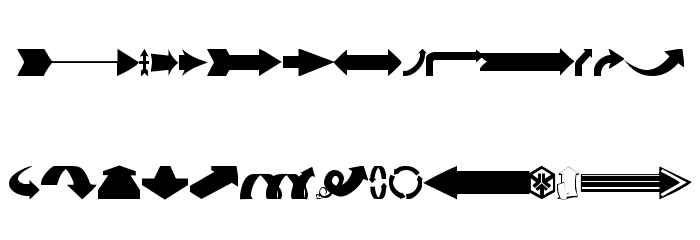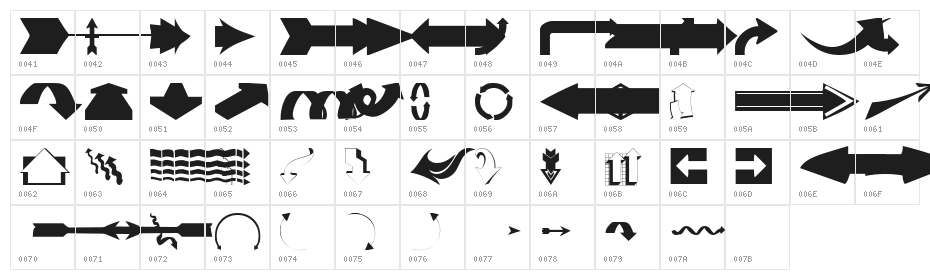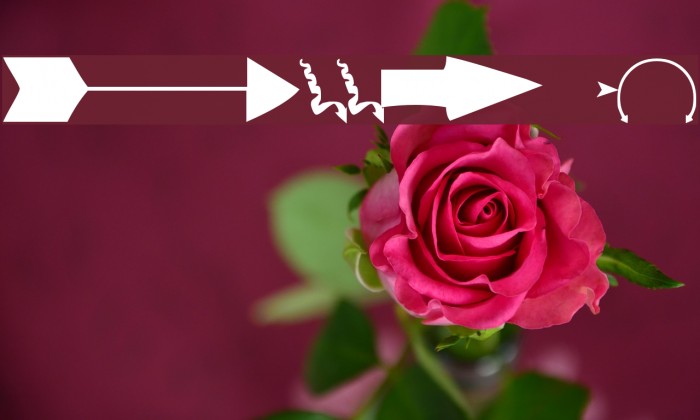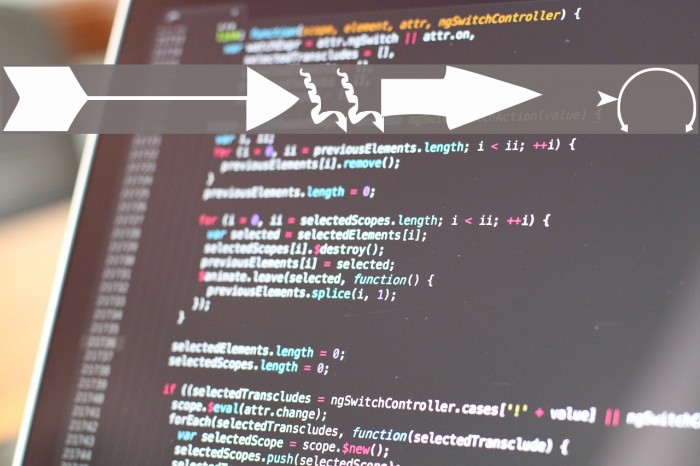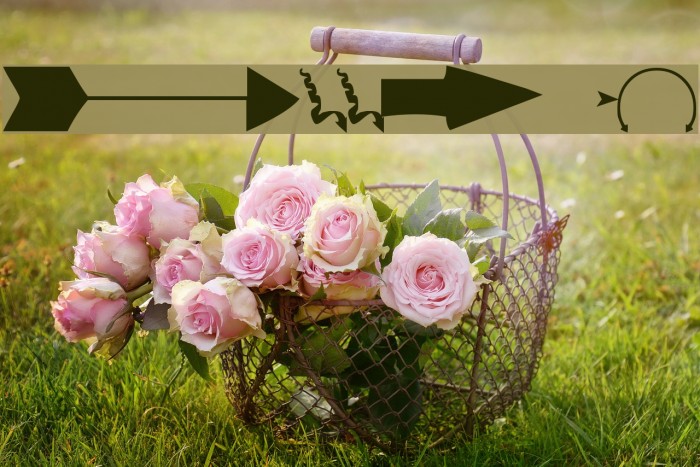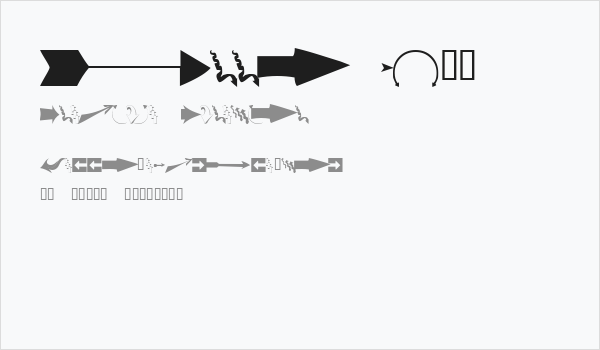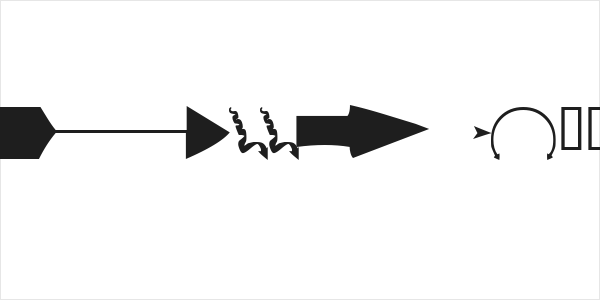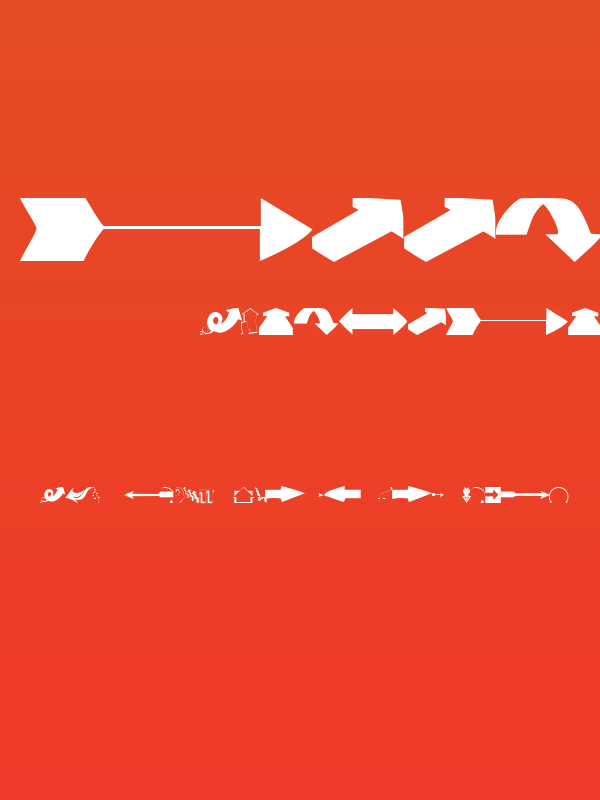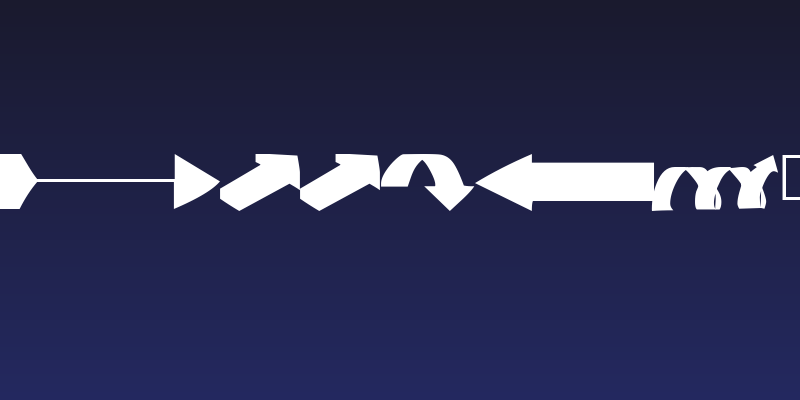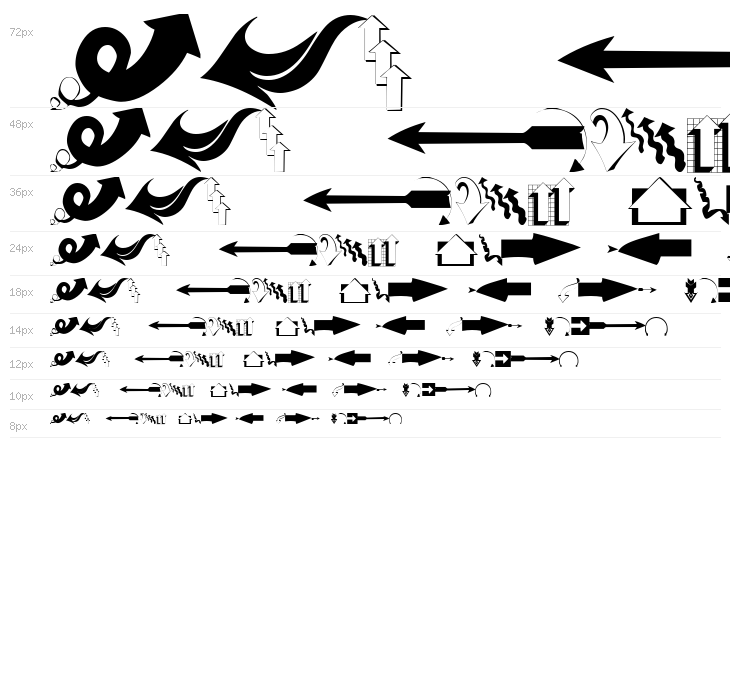
Arrows#1 Font
Arrows#1 Description
This collection features a diverse array of arrow designs, each with unique shapes and styles. The arrows range from bold, solid forms to intricate, decorative patterns. Some arrows incorporate geometric elements, while others have fluid, curvilinear designs. The set includes arrows with various heads, tails, and shaft styles, offering a wide range of visual expressions. These arrows can serve both functional and aesthetic purposes, making them versatile for different design needs.
| Use Case | Icons, Infographics, Decorative elements |
| Proposed Projects | Ideal for infographics, navigation icons, instructional graphics, and creative design projects requiring directional elements. |